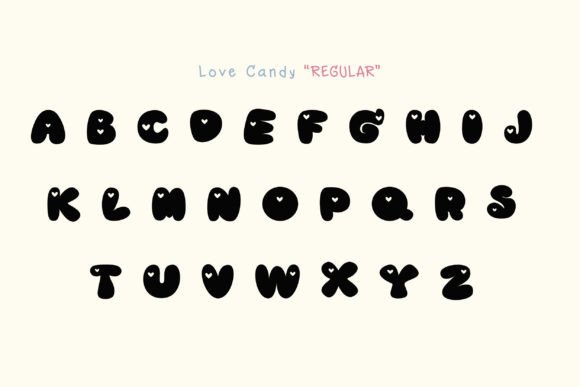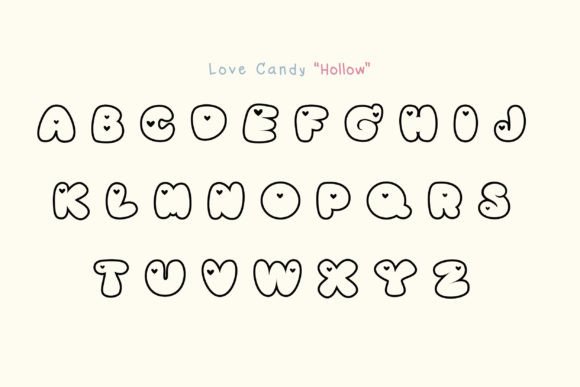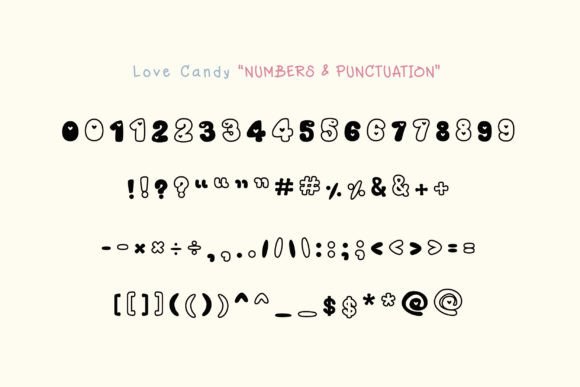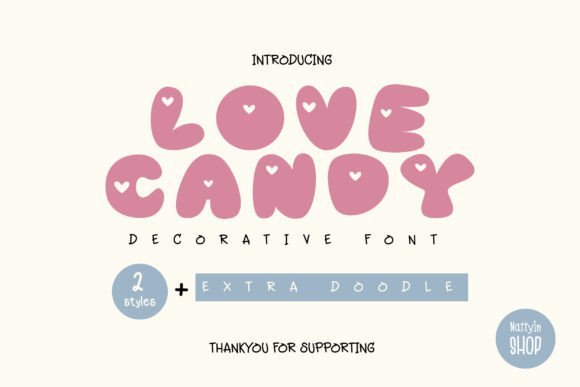
Introduction to Love Candy Font
Love Candy is a cute and playful decorative font that comes in 2 styles Regular and Hollow.
That fits your project typography stand out with this beautiful font that has the potential to elevate any creation It is perfect for invitations, greeting cards, advertising materials, DIY gifts, fabric prints, eye-catching social media posts, and more.
Key Features of Love Candy Font
Why Choose Love Candy Font?
Love Candy Font offers exceptional quality and versatility, making it a valuable addition to your design toolkit. Whether you’re creating for personal projects or commercial use, Love Candy Font delivers professional results.